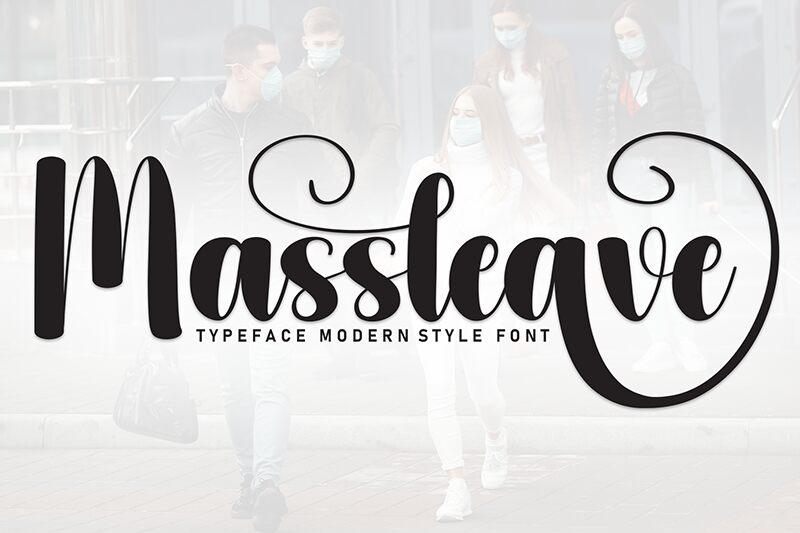
Massleave
Massleave font is a brush script font designed by Andi Moz. Decorative by nature, it beautifully mixes smooth flow, elegance, and modern appeal with the perfect notes of casual sophistication every now and then.